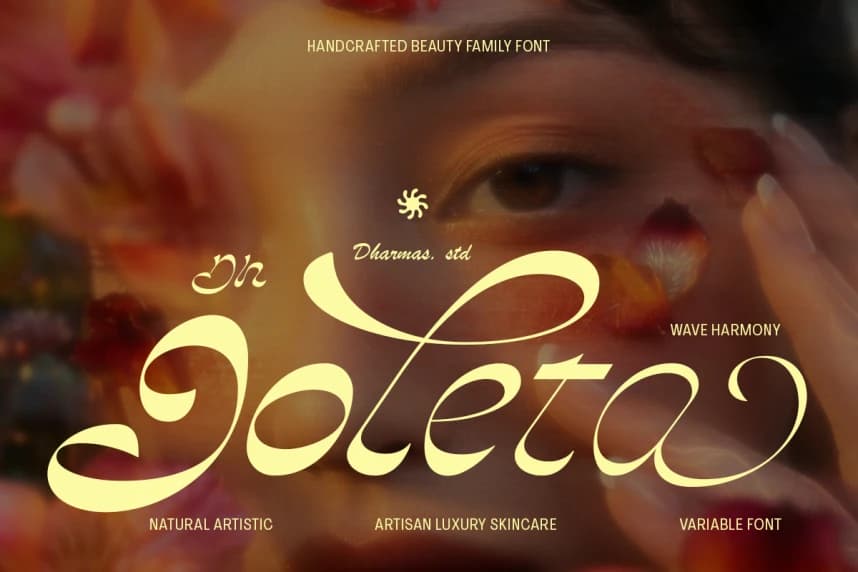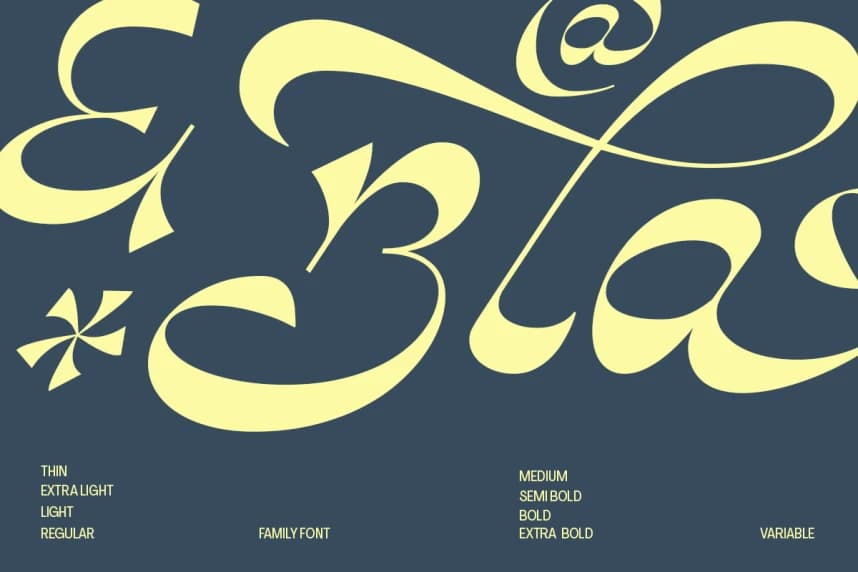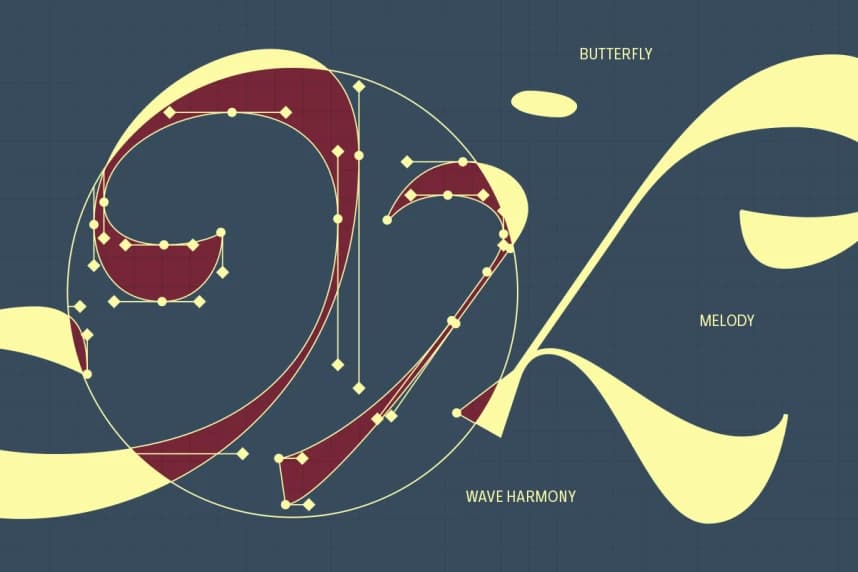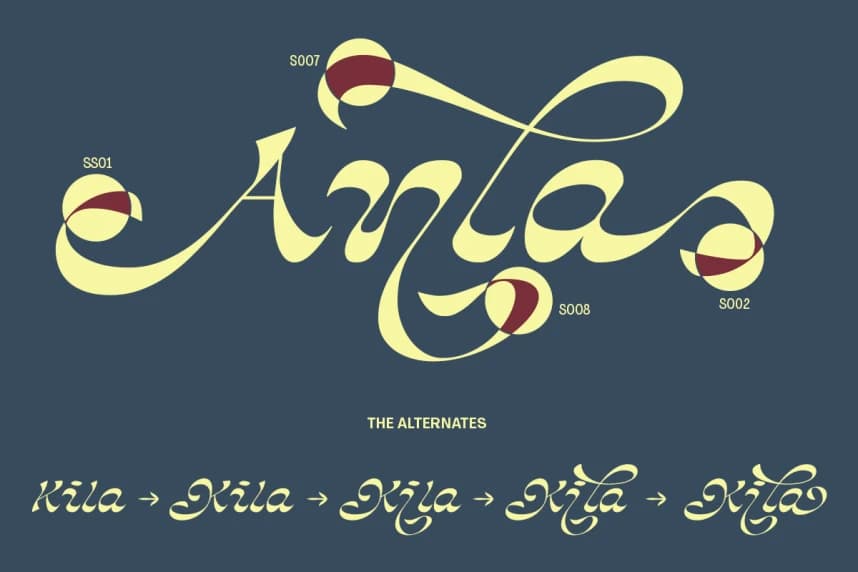
Dh Joleta Font
Dh Joleta Font is a handcrafted luxury beauty font family inspired by soft femininity, flowing butterfly wings, and elegant artistic calligraphy. Designed with graceful curves, expressive swashes, and refined high-contrast strokes